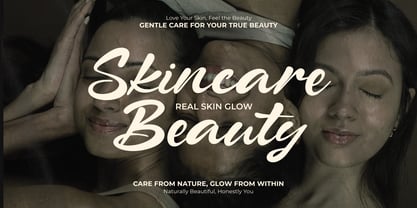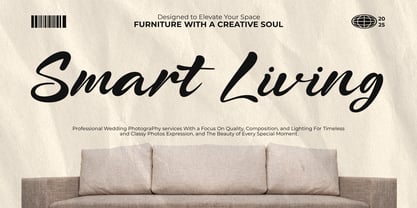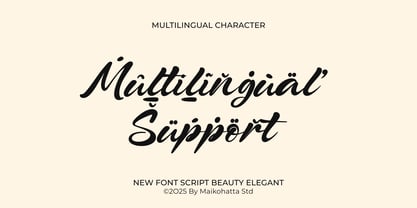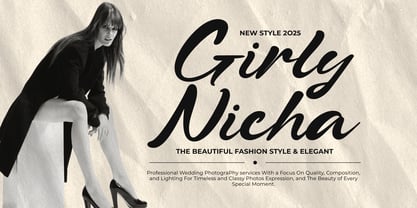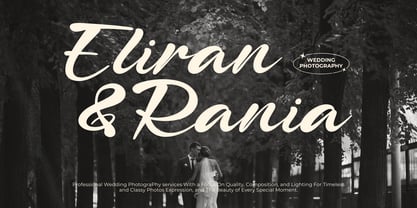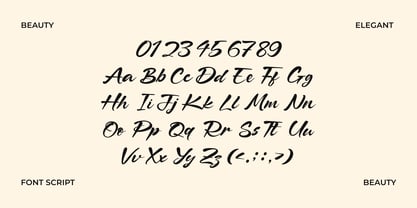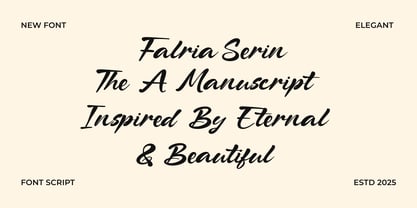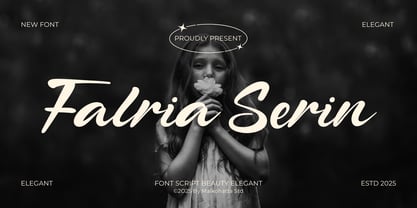
Falria Serin
by Maikohatta
The Falria Serin Font Family was designed by Gilang Ternadho and published by Maikohatta. Falria Serin contains 1 styles. More about this family
Introducing our new product Falria Serin - Elegant Beauty Script Font Falvia Serin is an elegant script font with a modern and romantic touch. Featuring smooth, flowing strokes and graceful letterforms, this font is designed to bring a sense of luxury, beauty, and sophistication to your designs. Its natural handwriting style creates a soft yet confident visual appeal. Perfect for branding, logos, wedding invitations, fashion design, beauty products, editorials, social media, and signature-style typography, Falvia Serin blends classic elegance with a contemporary aesthetic. Its balanced curves and stylish flow make it versatile and easy to use across a variety of creative projects. With its clean yet artistic look, Falvia Serin elevates your visual identity and adds a timeless, professional appeal to any design.
Designers: Gilang Ternadho
Foundry: Maikohatta